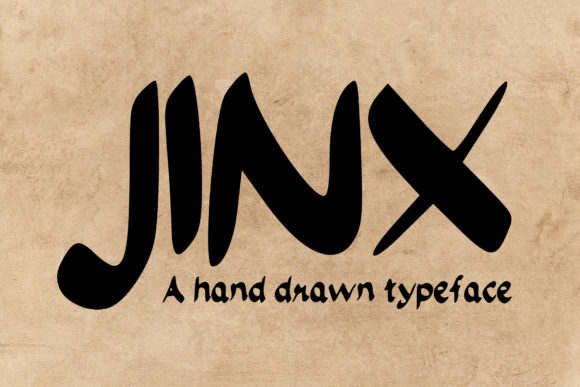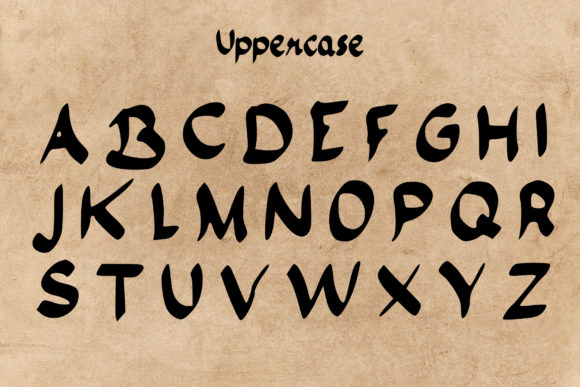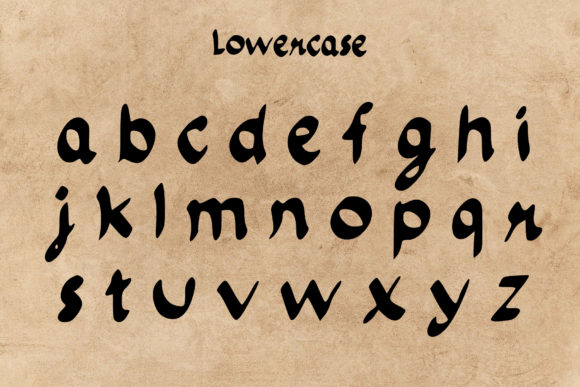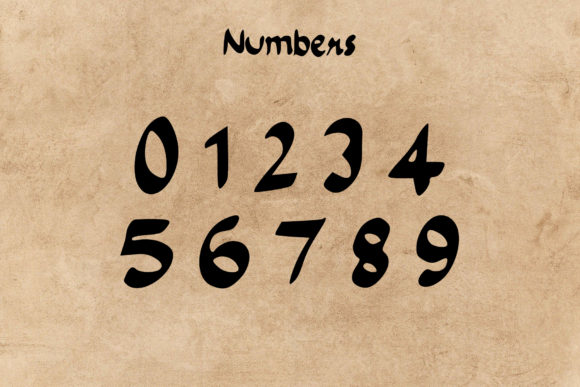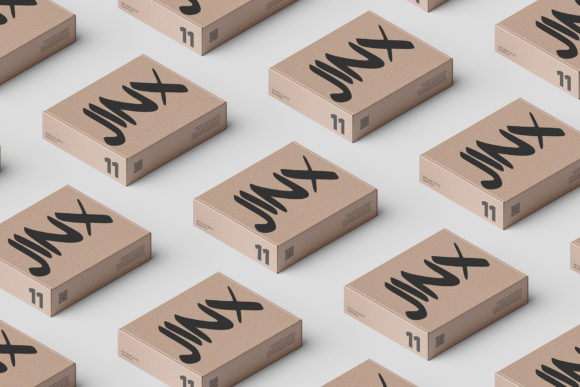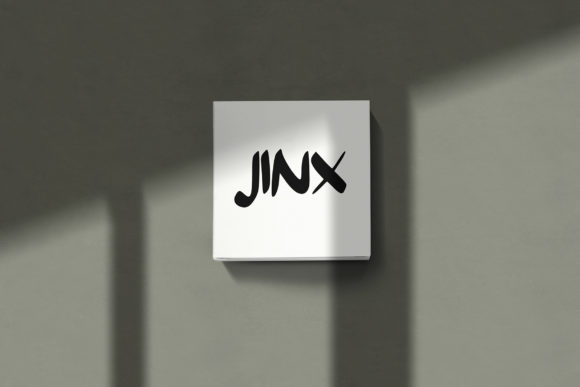
Jinx Font
About Jinx Font
Jinx is a unique, bold handwritten font, designed with the help of a brush pen. Its versatility will appeal to a wide range of crafty ideas, from letterheads and titles, to stationery.